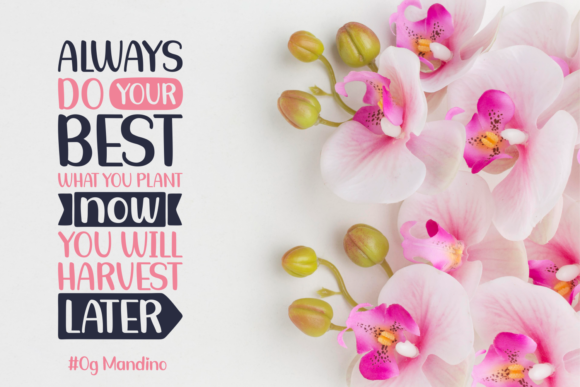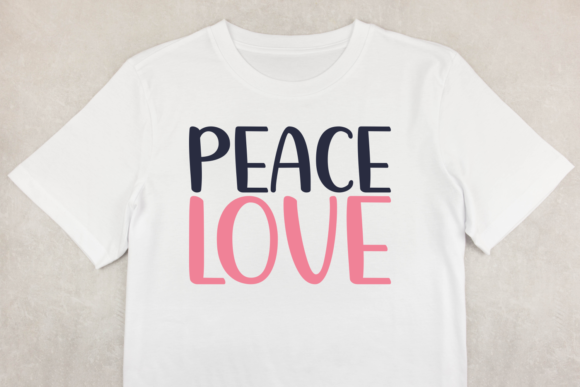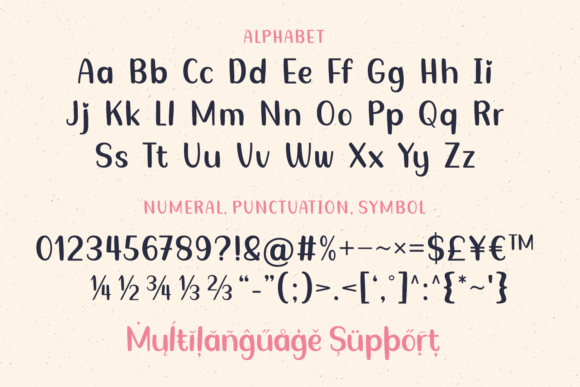
Introduction to Gloria Eritha Font Font
Fonts play a crucial role in design, and the Gloria Eritha Font font is a typeface that brings both character and versatility to any project. Whether you’re working on a branding project, a website, or a print design, the Gloria Eritha Font font offers a unique style that can elevate your work.
Gloria Eritha is a lovely handwritten typeface featuring heart elements in select characters.
Its simple and sweet nature will surely bring a personal touch to your next project This font is compatible with cutting machines such a Cricut and Silhouette.
Key Features of Gloria Eritha Font Font
Why Choose Gloria Eritha Font Font?
The Gloria Eritha Font font is more than just a typeface – it’s a design tool that helps you communicate your message with style and clarity. Its unique character set and versatile design make it suitable for a wide range of applications, from elegant invitations to bold headlines.
With its carefully crafted letterforms and balanced proportions, the Gloria Eritha Font font ensures readability and visual appeal across all mediums.
What makes Gloria Eritha Font font special?
The Gloria Eritha Font font stands out with its unique design, exceptional readability, and versatility across various design applications.